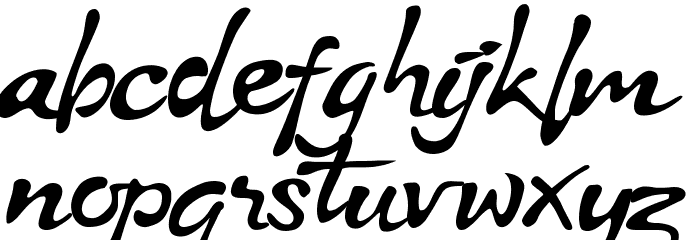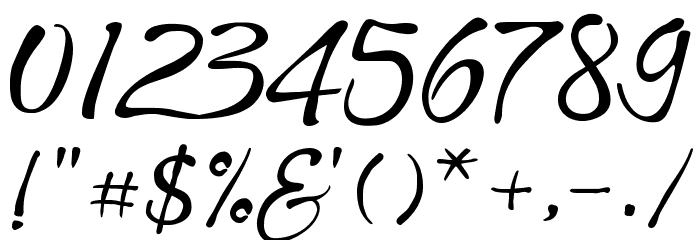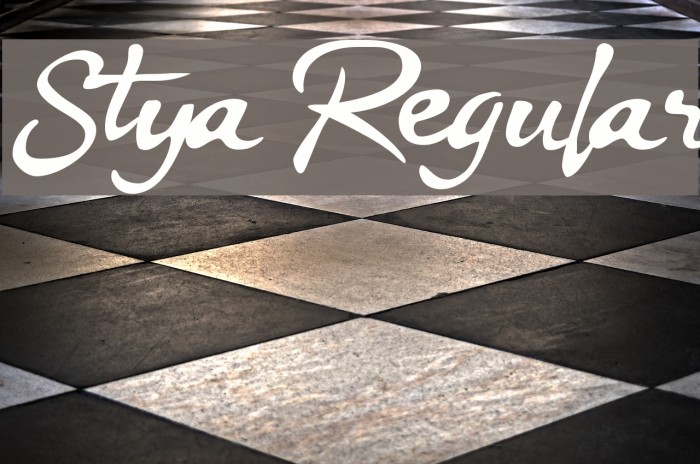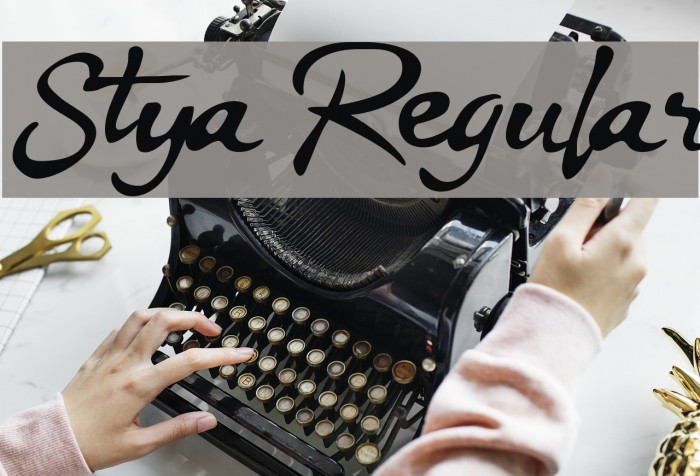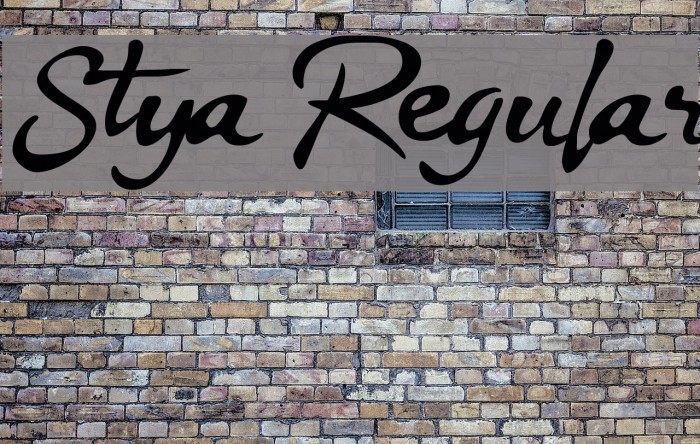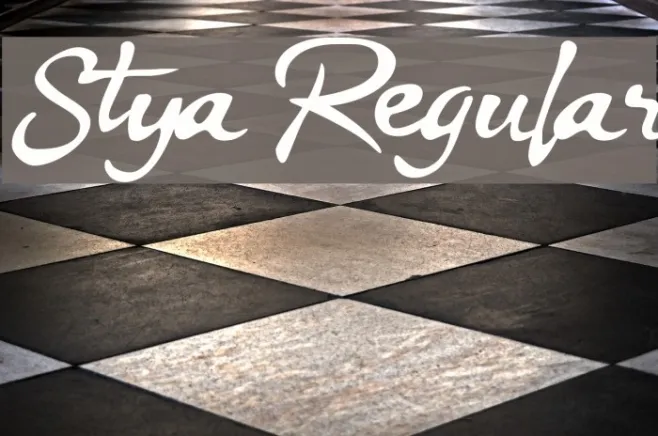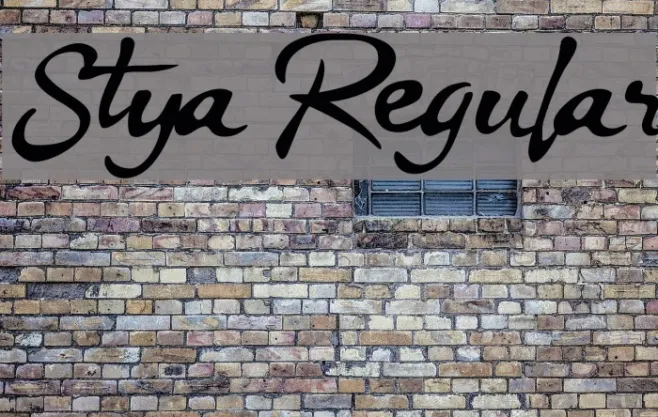
Stya Regular Font
This font exudes a dynamic and energetic feel with its fluid, cursive style. The letters are crafted with a sense of motion, characterized by sweeping curves and varying stroke widths that add a lively rhythm to the text. The uppercase letters are bold and prominent, while the lowercase letters maintain a consistent flow, making it ideal for creating a sense of elegance and sophistication. The numerals and special characters are designed to complement the overall style, ensuring a cohesive look across different types of content. This font is perfect for projects that require a touch of flair and personality.
A dynamic cursive font with fluid strokes and lively rhythm.
- Proposed Projects: Ideal for branding, invitations, greeting cards, and artistic projects.
- Use Case: Logos, Invitations, Artistic projects